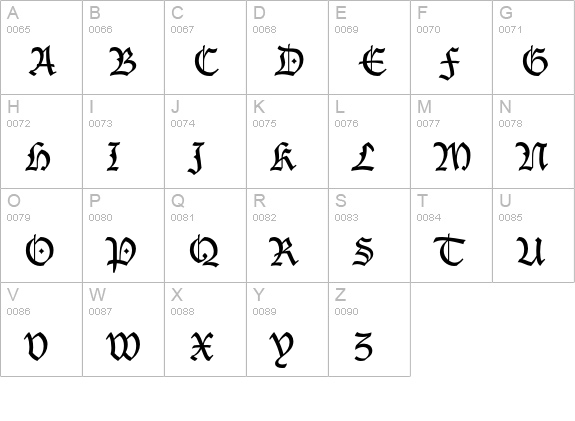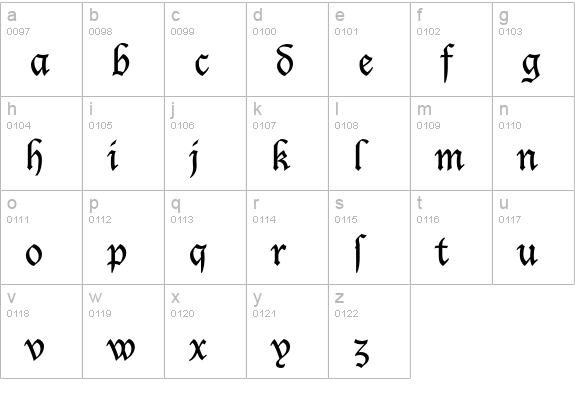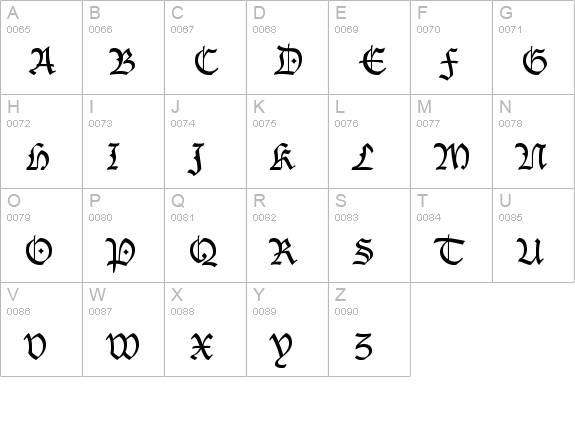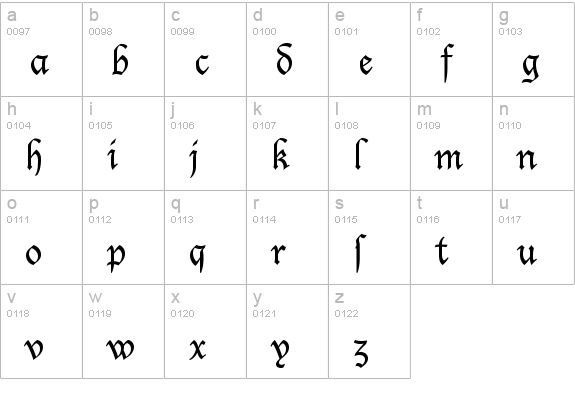
LucidaBlackletterEF Font Details
LucidaBlackletterEF is an elegant and sophisticated font that exudes a sense of classical charm and historical significance. Its intricate design features elaborate swirls and embellishments that give a touch of old-world beauty to any project. The bold, Gothic-inspired letterforms of LucidaBlackletterEF make it a perfect choice for creating a sense of drama and gravitas in your designs. And the best part? LucidaBlackletterEF is available for free download at FontsMarket.com! This means you can easily add this exquisite font to your collection without any cost. Whether you're working on invitations, posters, or branding materials, LucidaBlackletterEF will bring a touch of timeless elegance to your projects. Download it today and add a touch of sophistication to your designs!